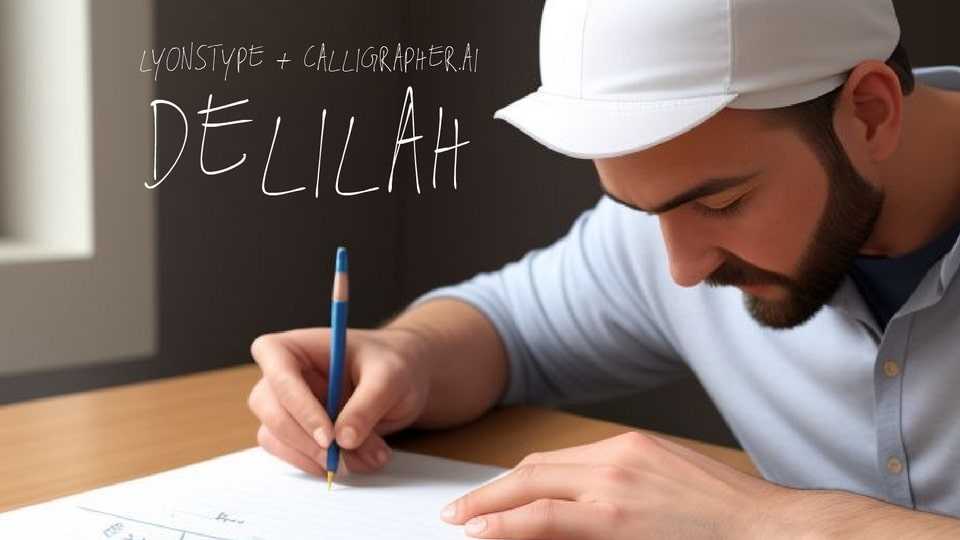
Download LT Delilah font, a crafted handwriting font. The intricate details of LT Delilah’s strokes and curves reflect the artistry and precision involved in its creation process.